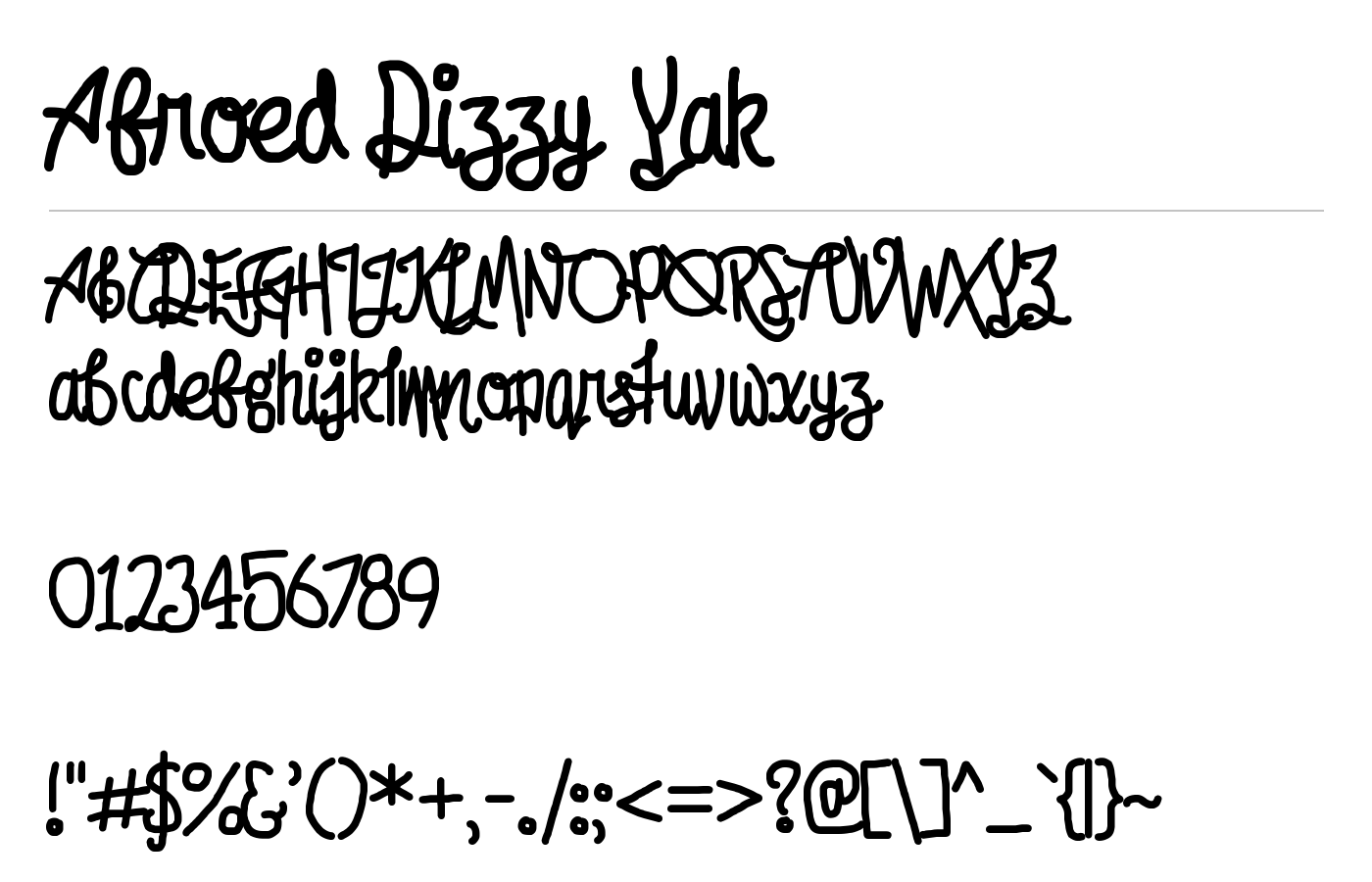
Afroed Dizzy Yak is a playful, handwritten script font characterized by its irregular, looping strokes and casual, lively feel. Its tall, narrow letterforms and uneven baseline convey a quirky, informal personality, making it perfect for creative projects, kids’ content, or any design seeking a fun, approachable touch. This font works best in headlines, logos, and packaging where a distinctive, hand-drawn look can stand out and add unique character.
Afroed Dizzy Yak Font
About Afroed Dizzy Yak Font